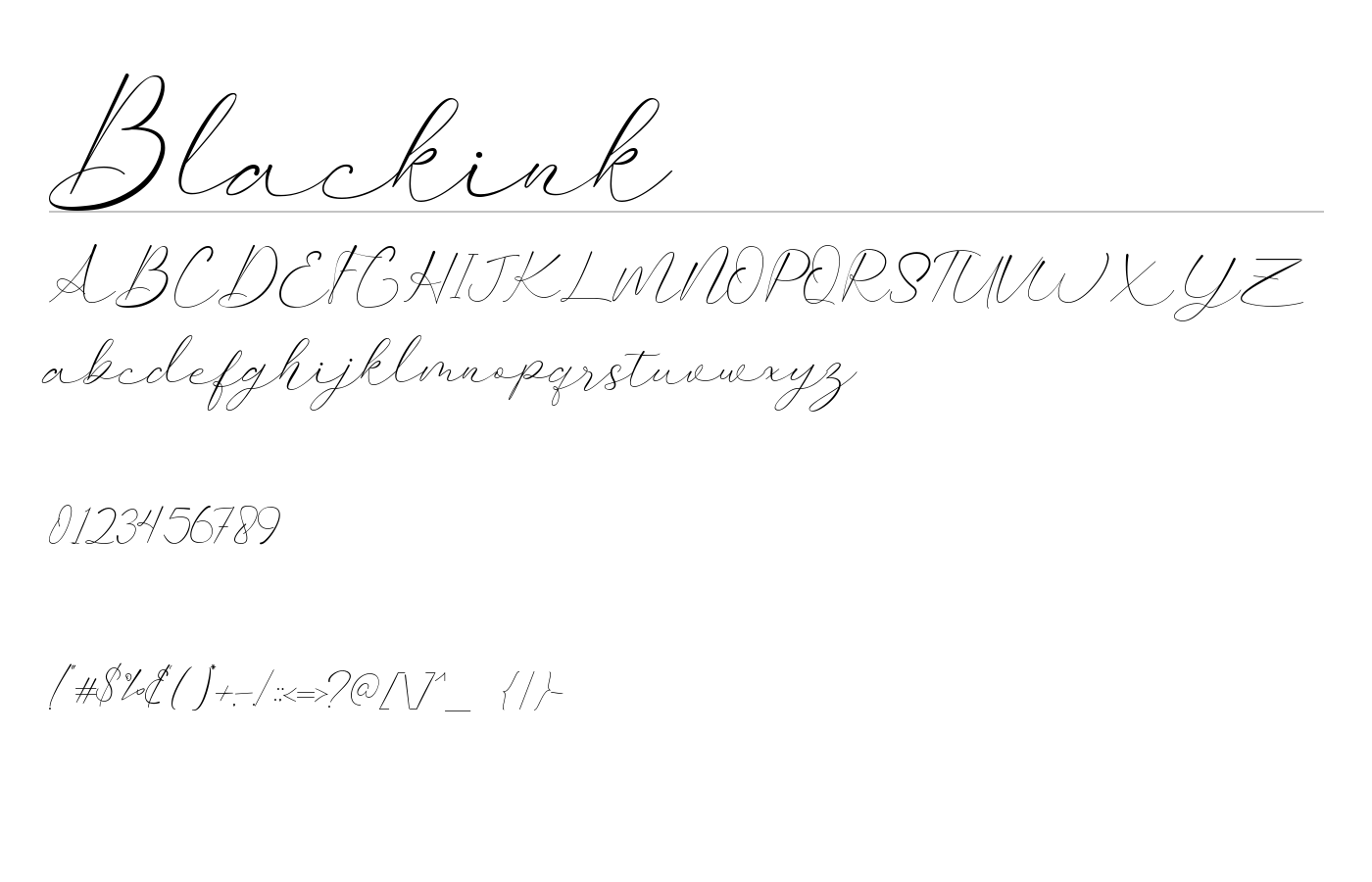
Blackink is a delicate, elegant script font with thin, flowing lines and a refined, handwritten feel. Its tall x-height and smooth, slender strokes give it a sophisticated and airy appearance, making it perfect for luxury branding, wedding invites, and stylish editorial designs. This font’s graceful character shapes and light weight convey a modern, artistic personality ideal for projects seeking a touch of elegance and charm.
Blackink Font
About Blackink Font
| Font family | Blackink Font |